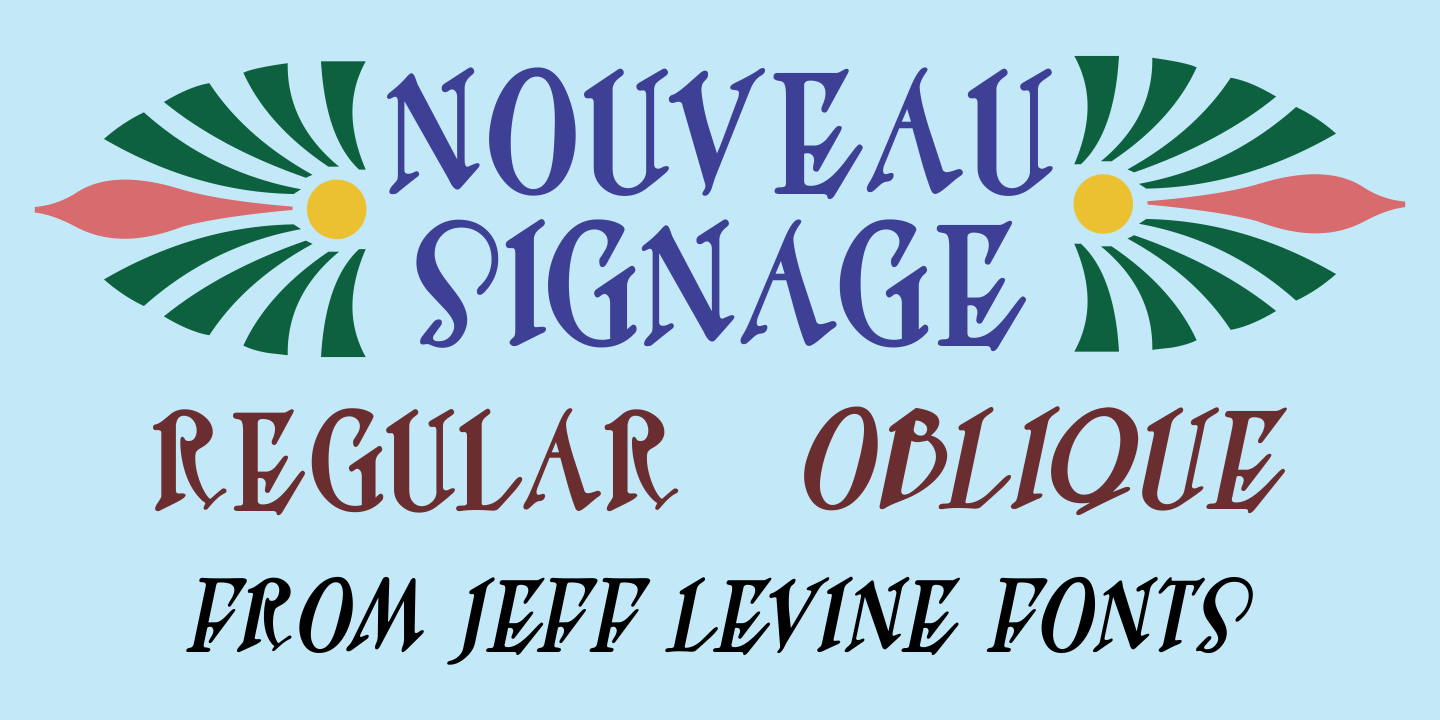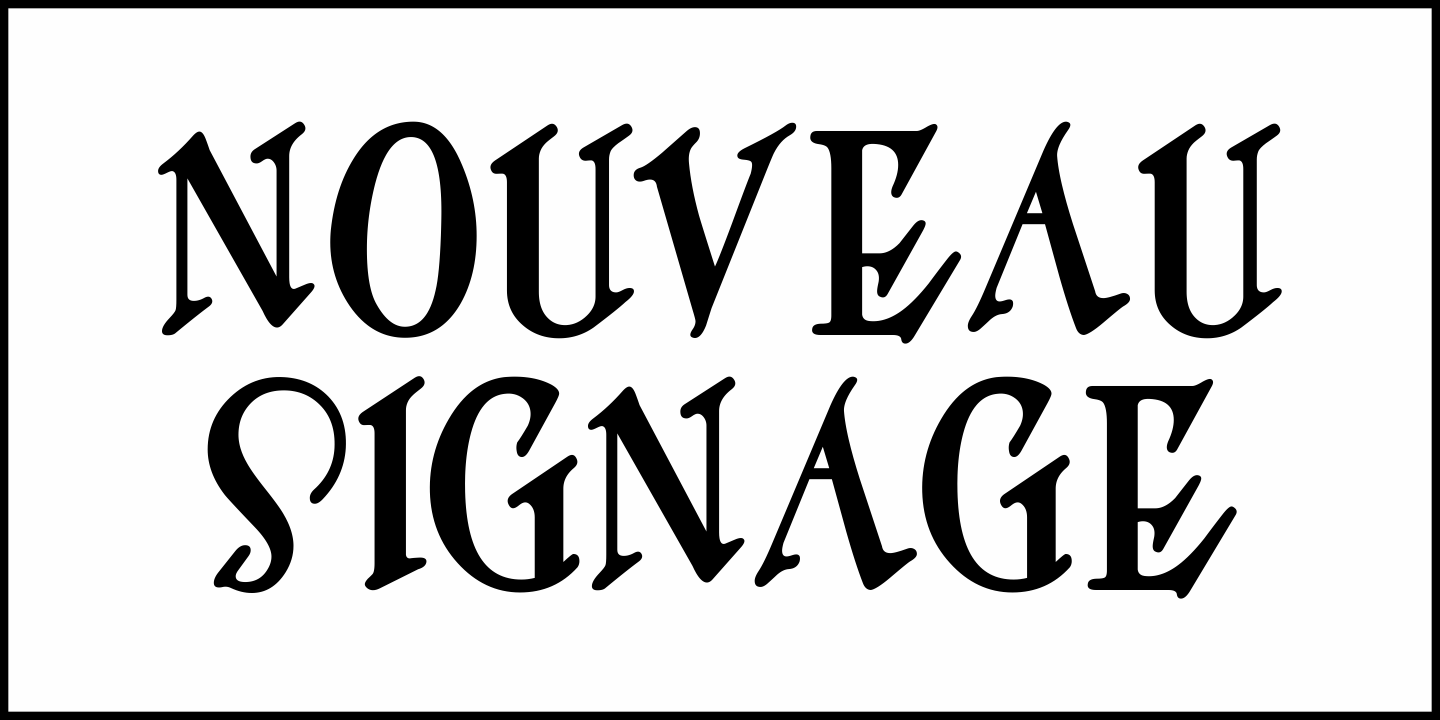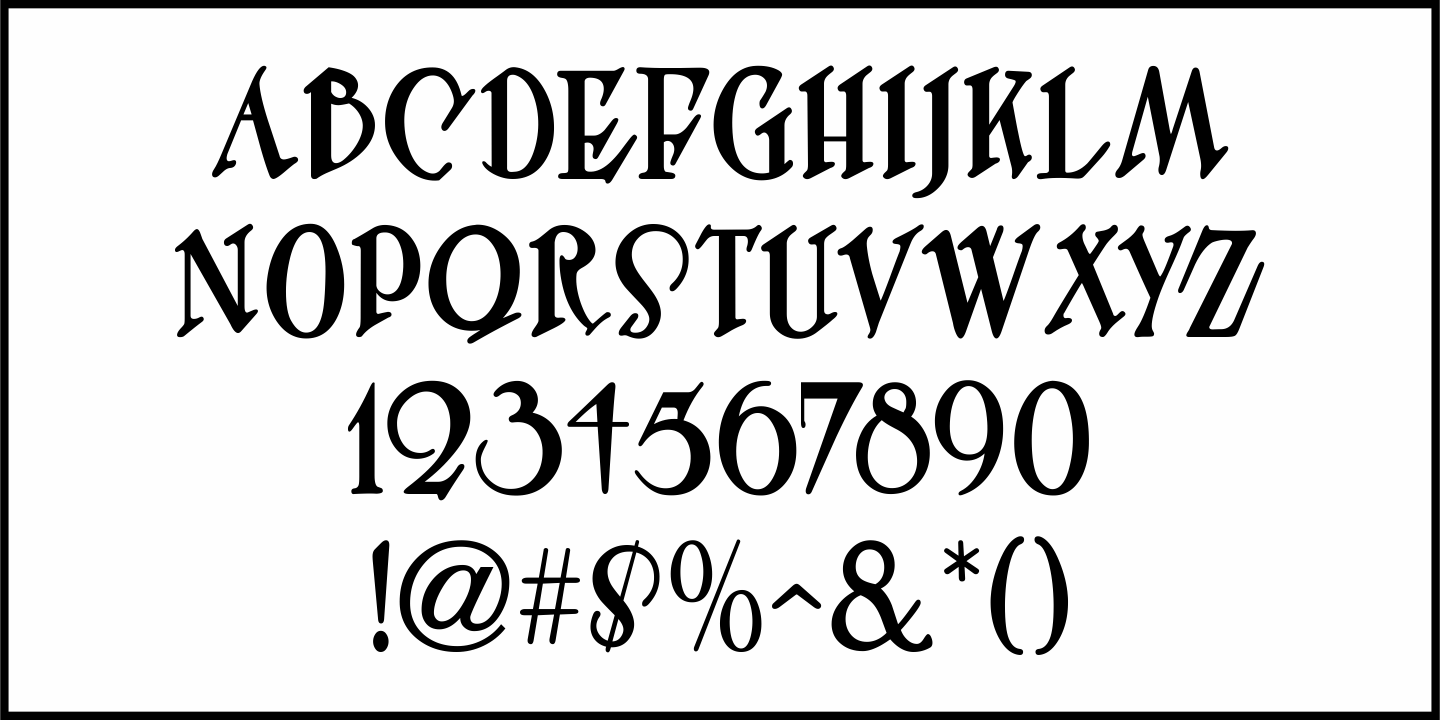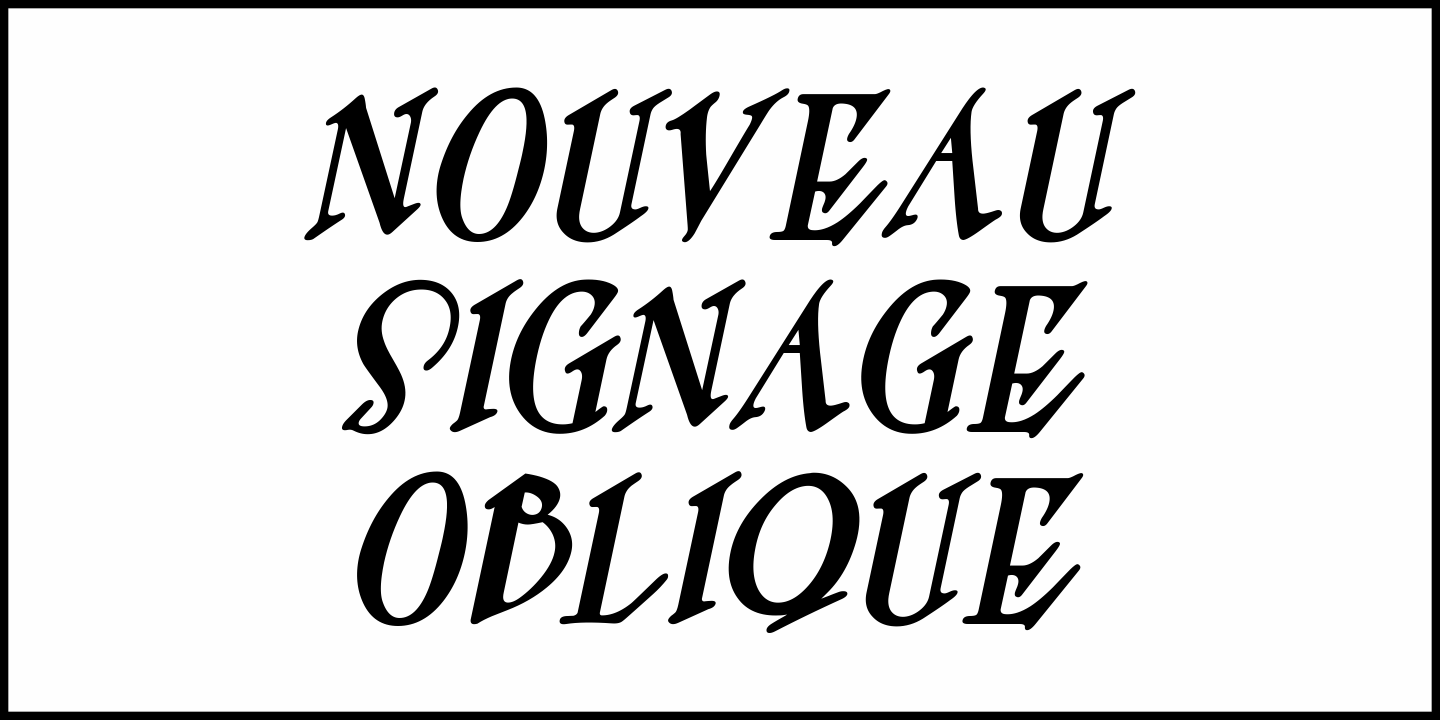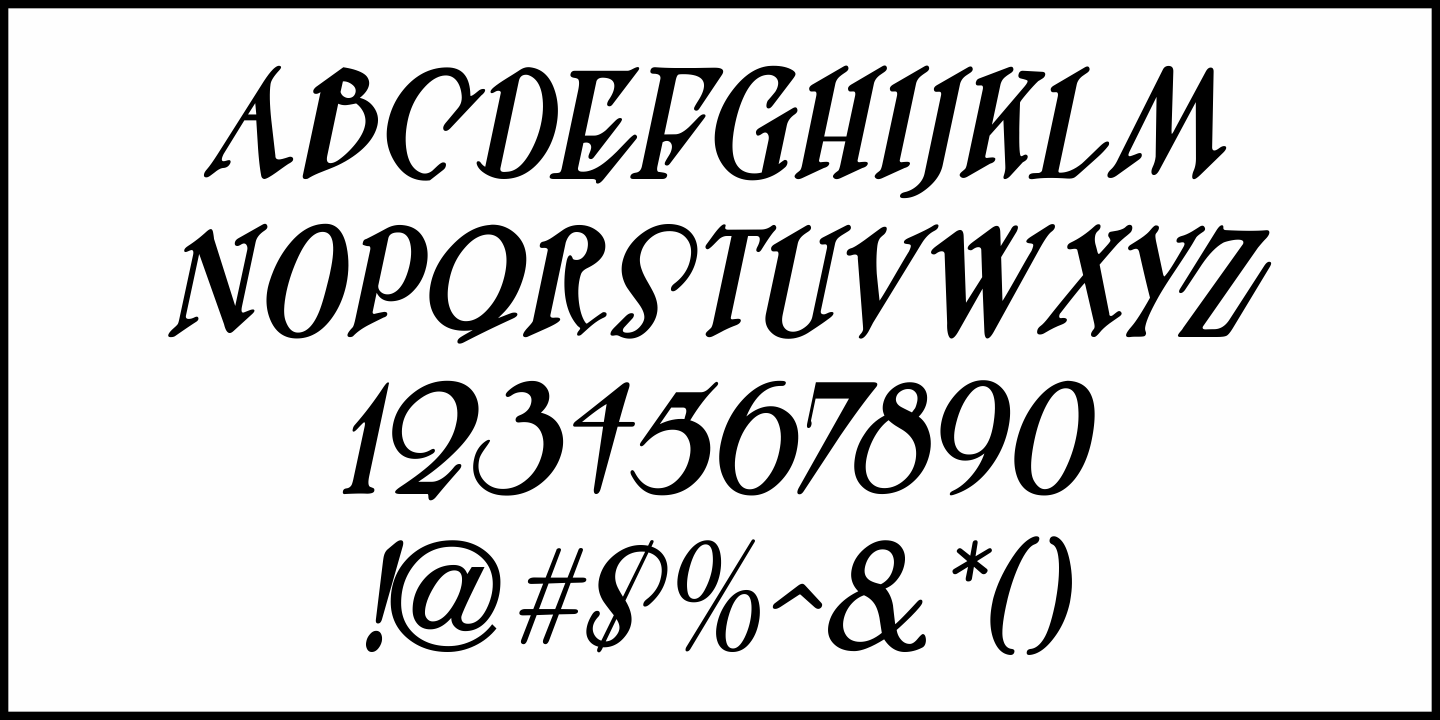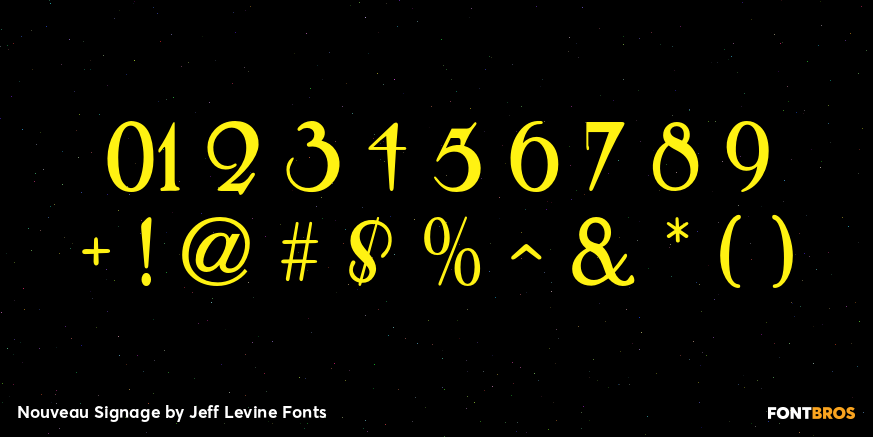
Nouveau Signage
Buy NowOccasionally a type design is started - then set aside for whatever reason - before eventually being completed. More often than not, the original source material is forgotten, so proper attribution cannot be made.
Such is the case for a hand lettered Art Nouveau alphabet likely found within the pages of an early Speedball lettering book from around the 1920s.
This playful and casual design is now digitally reproduced as Nouveau Signage JNL, and is available in both regular and oblique versions.